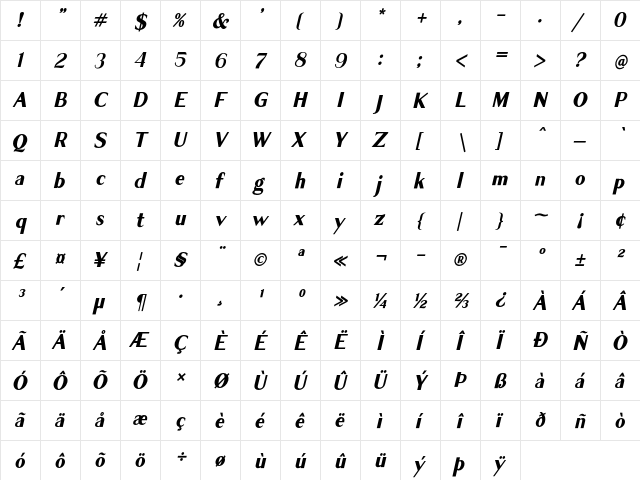
Cagile SemiBold-Italic Font Preview
Cagile SemiBold-Italic
Design Context for Cagile Typeface
Cagile offers clean, dependable letterforms without strong stylistic allegiance, making it a practical choice for designers who need flexibility. The slanted form adds forward momentum and visual energy. The heavy weight commands attention and anchors typographic hierarchies.